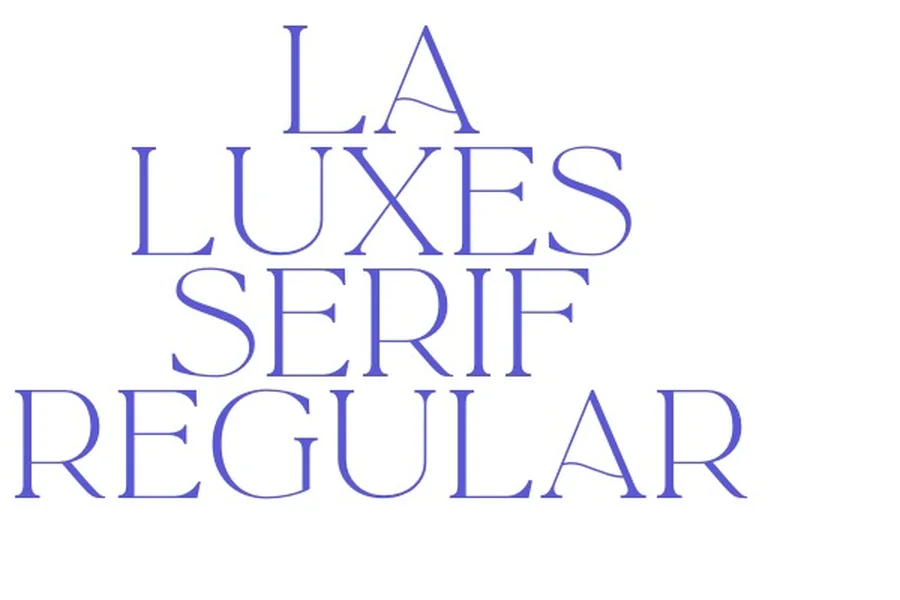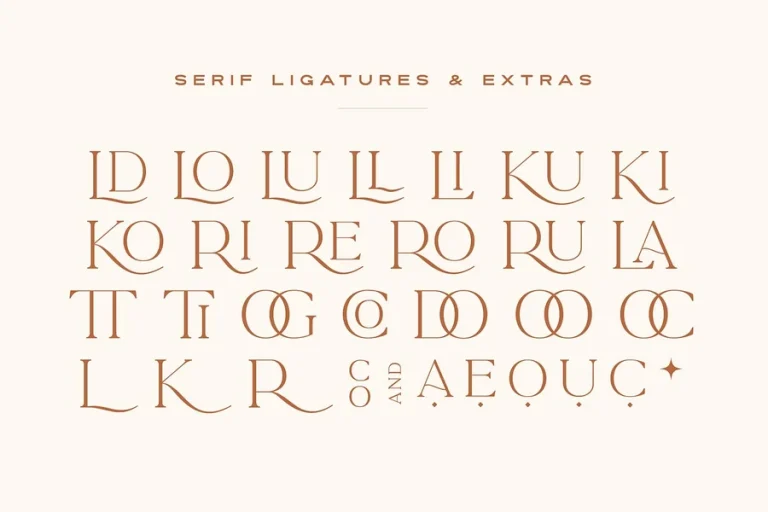
La Luxes Font Style Guide For Creative Modern Design
La Luxes Font
La Luxes Font is a contemporary and stylish font that injects the confidence of style and creativity to any design. It is also audacious and tender but artistic and readable at the same time. This font can be used to add personality without overwhelming the message which is why it is popular among designers. La Luxes Font is a font that is effective to brand fashion beauty social media and digital art.
It is a guide that will make you learn the functionality of La Luxes Font where to apply it and why it is still increasingly becoming popular. The style of writing here is easy and lighthearted enough that any person would be interested in getting to know more about this font.
What Makes La Luxes Font Special
La Luxes Font is unique as it is luxurious and simple to use at the same time. The letter forms are soft and emotional. Every curve is purposeful and unsmudged. This facilitates its application in both big fonts and small fonts.
La Luxes Font is usually used by designers who desire to demonstrate the confidence and beauty of modernity. It is suitable to lifestyle brands fashion labels beauty bloggers and creative projects. The space is natural and serves to make the text breathe.
La Luxes Font is also effective in digital and print space. This font remains crisp and clear whether you are designing a poster or a post in a social media.
Where You Can Use La Luxes Font
La Luxes Font is versatile and can be used in a variety of creative purposes. It can be used to do logo design branding a headline or packaging or even a social media graphic. It appears powerful on Instagram posts and attractive on websites.
La Luxes Font is also used by many designers in the beauty brand fashion campaigns and their personal portfolios. It gives a clean appearance that is high-end without appearing bulky.
You may use simple fonts together with La Luxes Font in order to achieve a balance. It is great to use as headings and another clean font as body text. This opposition makes your design look contemporary and corporate.
La Luxes Font
Design Personality of La Luxes Font
La Luxes Font is self-confident and classy. It is an address to imaginations and daring thoughts. The structure remains strong and the curves are smooth. This balance makes it have a classic look.
It is effective when it comes to conveying a message that is of quality and style. It is usually selected by designers due to luxurious or artistic branding. It is also appropriate to personal brands that desire to appear refined and special.
The font of La Luxes is attractive and thus keeps the readers entertained. The reading is comfortable and pleasant because of the flow of letters.
Creative Projects Using La Luxes Font
La Luxes Font is applicable in numerous creative works. It is effective in fashion lookbook digital advertising of products and banners on social media. It is also used by many of the creators as website headers and landing pages.
It can also be paired in event branding like weddings fashion shows as well as art exhibitions. Invitations and posters are made beautiful and elegant with the font.
Thumbnails and cover designs are the preferred fonts used by content creators. It assists in catching attention and at the same time being stylish and clean.
Why Designers Love La Luxes Font
The reason why La Luxes Font is valued by designers is that it is time-saving and at the same time exudes beauty. It is compatible with numerous design styles and platforms. It does not require much changing to appear good.
It promotes also the freedom of creativity. Depending on your project, you are allowed to use either bold or light spacing. The font is easy to adapt and does not lose its charm.
The font La Luxes is also up to date. It adheres to the current trends in design but at the same time feels eternal. This is a risk-free and intelligent one when it comes to long term branding.
Tips for Using La Luxes Font Effectively
Headlines or featured text should be done in use of La Luxes Font to have high impact. Balance it out with basic fonts. Leave sufficient intervals between letters so that they may breathe.
La Luxes Font is a modern decorative font with elegant and clean letter shapes
Is La Luxes Font good for branding?
Yes it works very well for branding especially in fashion beauty and lifestyle niches
Can La Luxes Font be used for logos?
Yes it is often used in logos because it looks stylish and professional
Is La Luxes Font readable for long text?
It works best for headings and short text but can also be used carefully for longer content
What styles pair well with La Luxes Font?
Simple sans serif fonts pair well and help balance the design